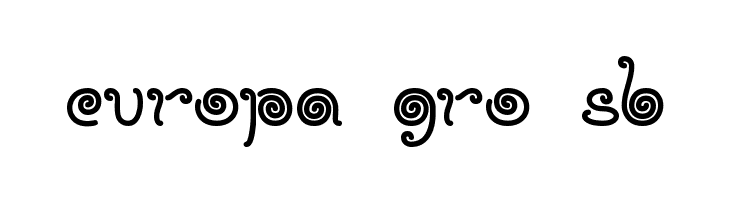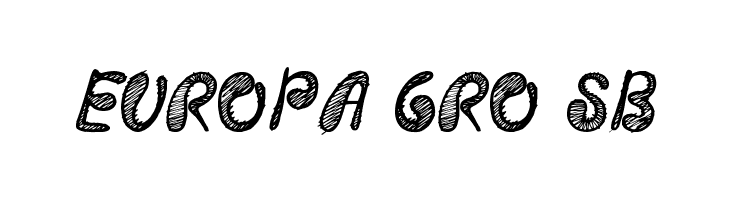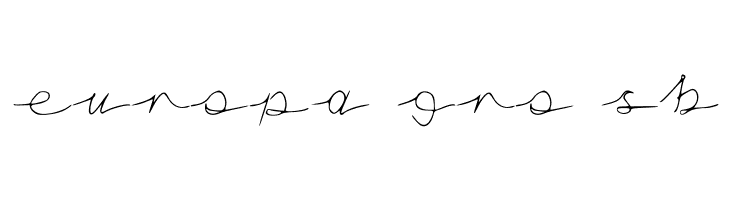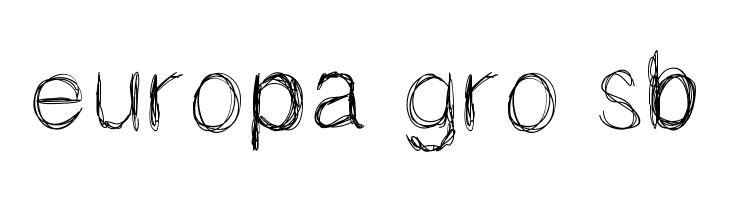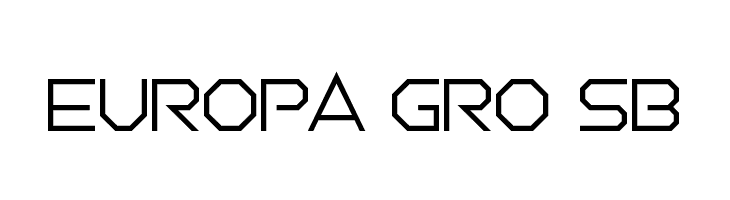
Hammers.and.Strings Font
A playful, handwritten font with tall, narrow letters and a casual style.
Strings Theory Font
A bold, gothic-inspired font with sharp, angular edges and high contrast.
SA-Heart Strings Font
A whimsical, heart-adorned font with a playful, hand-drawn style.
Licorice Strings BRK Font
Font by www.aenigmafonts.com
A playful, curly font with bold, spiral elements.
Strings and Things Font
Font by Jonathan Harris - www.tattoowoo.com
A bold, hand-drawn font with a textured, scribble-like pattern.
Guitar Strings Font
Font by www.hindson.com.au
A bold, geometric font with characters enclosed in rectangular outlines.
AL Conscience AH Font
ArtsyLady - artsylady.8m.com/fonts/fontpage.htm
A bold, playful font with whimsical faces integrated into each letter.
Orchestra of Strings Font
A geometric, angular font with a modern and futuristic aesthetic.